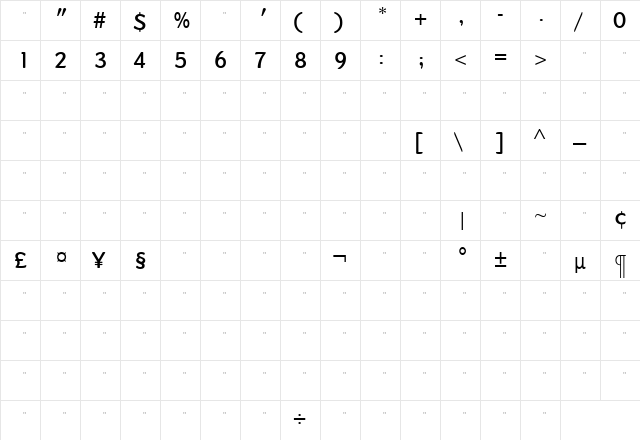
DundeeMedTab Regular
Design Context for DundeeMedTab Typeface
DundeeMedTab offers clean, dependable letterforms without strong stylistic allegiance, making it a practical choice for designers who need flexibility.
Pro Tip: Use DundeeMedTab in both headline and body roles to test its range before committing to a single application.